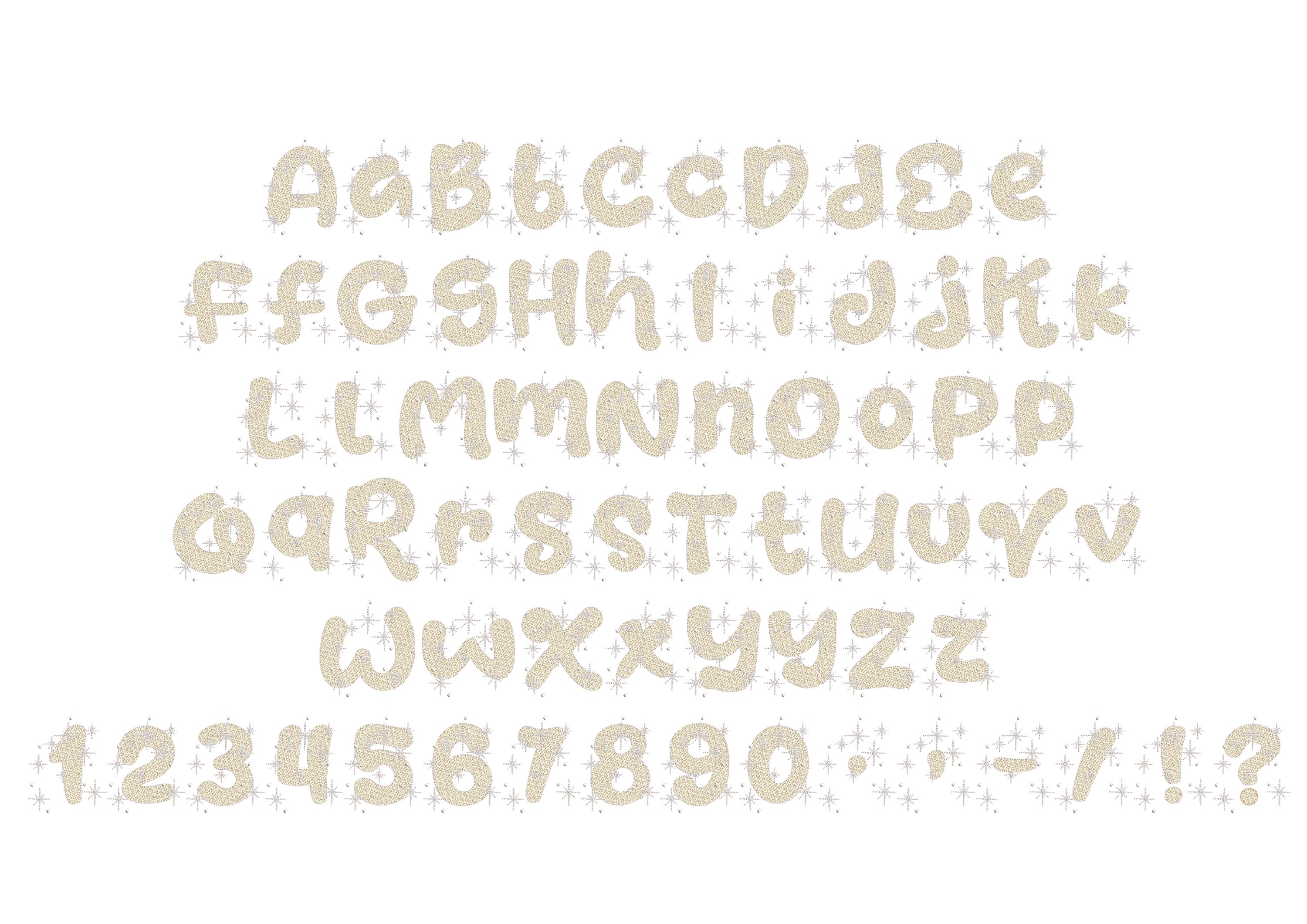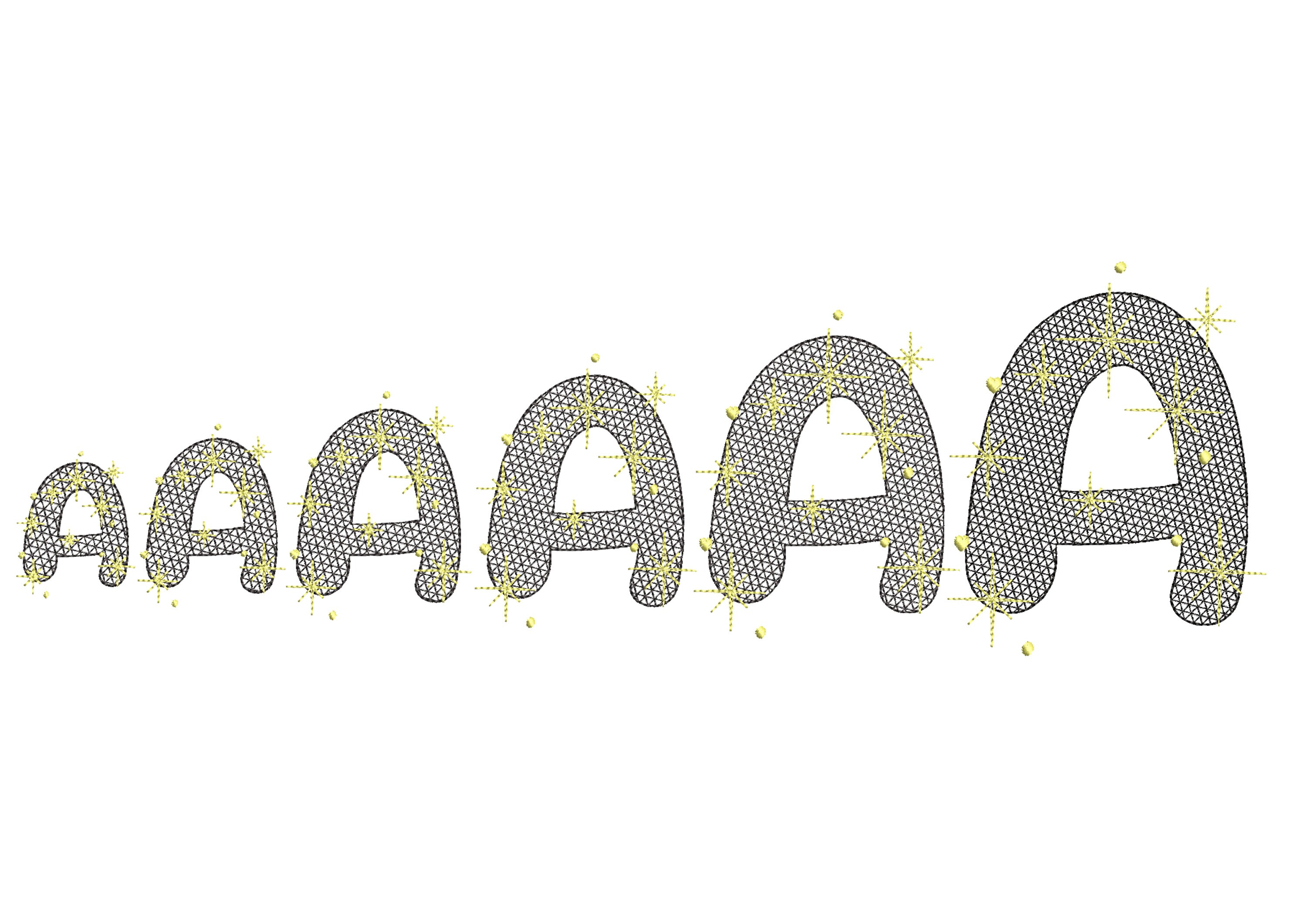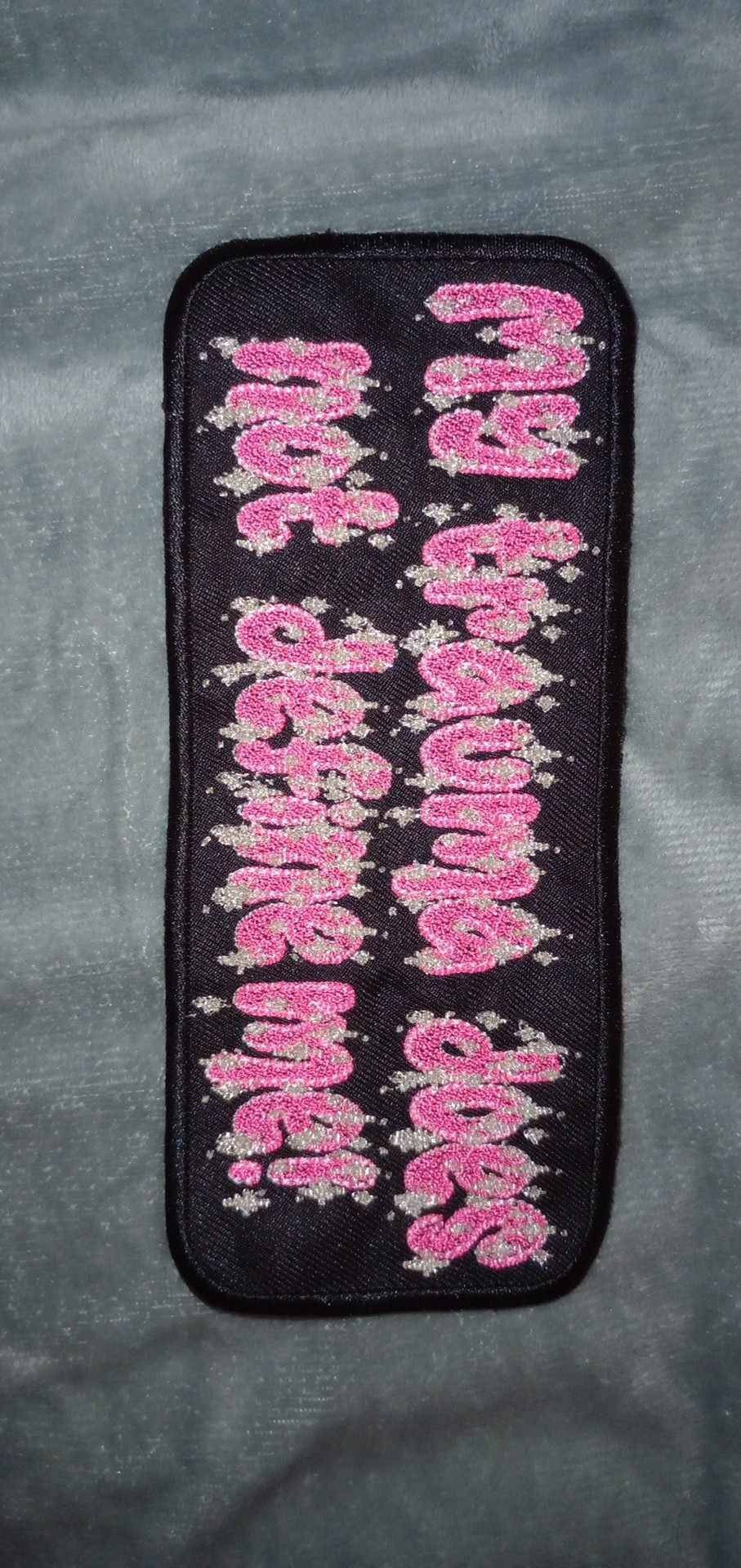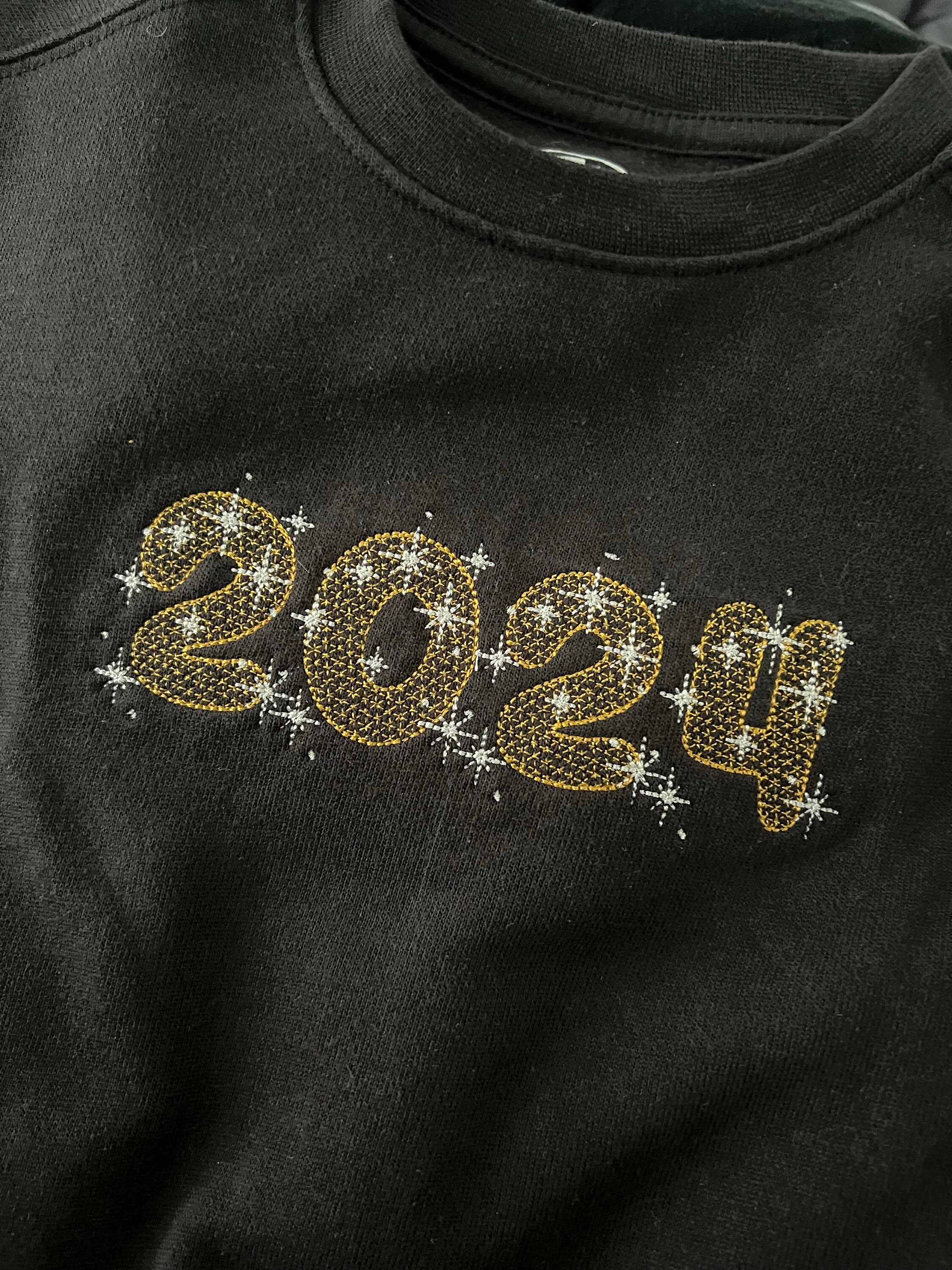
Sparkle Glitter FONT night starry sky alphabet kids girl princess name monogram machine embroidery designs in assorted sizes, BX included
It looks incredible! The design looks like lace, the background fabric looks through.
Whole alphabet A-Z uppercase and lowercase, numbers nad punctuation.